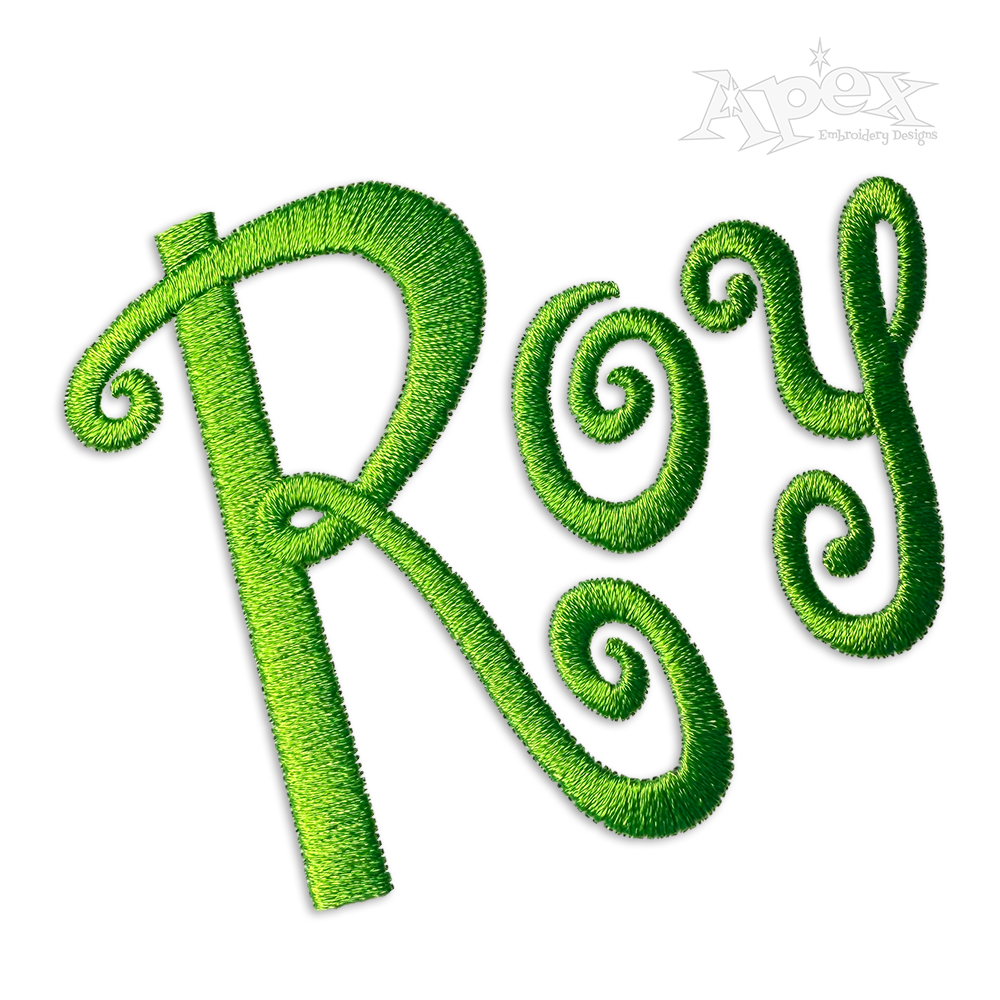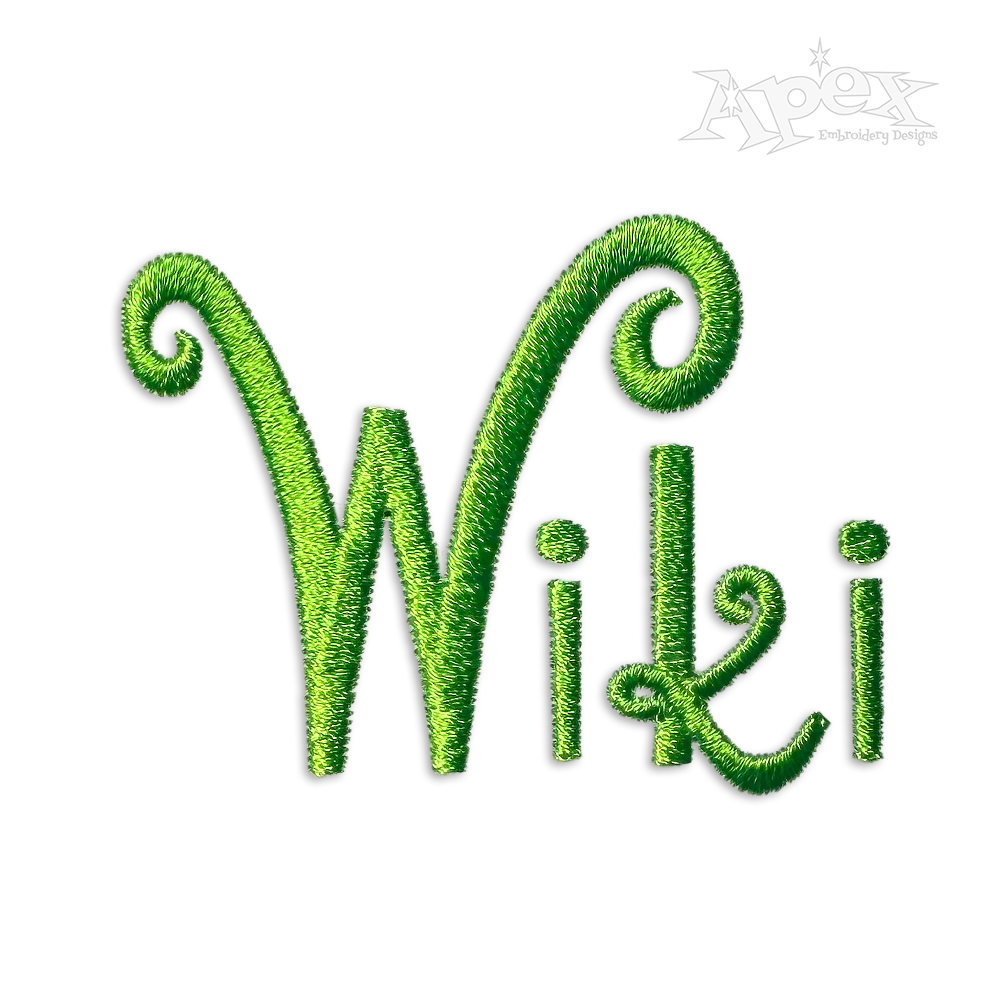
Sonny Embroidery Font
Conceived at the drafting table to breathe new life into playful typography, the Sonny Embroidery Font is a spirited celebration of movement, charm, and sunshine. Where conventional curly alphabets often feel chaotic or overly dated under the needle, Sonny balances whimsical swashes with disciplined geometry. Each letter rolls into the next with lyrical momentum, evoking the effortless delight of handwritten script combined with the clean architecture of modern boutique branding. It stitches out with a radiant cadence, making every personalized keepsake feel both lighthearted and meticulously crafted.
Project Ideas for Sonny
The cheerful energy of Sonny makes it a versatile choice for personalized gifting, bespoke resort wear, and boutique children's collections:
- Heirloom Nursery Linens: Embroider full names across waffle-weave baby blankets, crib bumpers, and heirloom christening keepsakes.
- Custom Children's Apparel: Stitch buoyant monograms onto sunny sunsuits, denim overalls, knit cardigans, and gingham birthday rompers.
- Bespoke Resort Accessories: Personalize canvas pool totes, oversized sun hats, and woven beach pouches with sun-soaked names or initials.
- Lively Tabletop Settings: Add a splash of personality to linen cocktail napkins and seasonal table runners for festive brunches and garden parties.
- Personalized Gift Sets: Transform cosmetic clutches, spa wraps, and travel duffels into memorable bridal party gifts and graduation mementos.
Because Sonny features dynamic curves and an animated posture, thoughtful placement lets its personality shine without overwhelming the garment:
- Left Chest & Pocket Accents: Use the 1-inch or 2-inch sizing slightly above or directly across pockets for a classic boutique look.
- Diagonal Corner Hooping: Position the 2-inch initials at a 45-degree angle on square dinner napkins or plush fingertip towels for an elevated, asymmetrical presentation.
- Center Front Framing: Position names or three-letter monograms in the 3-inch size dead center across sweatshirts, tee shirts, or canvas organizers.
- Cuff & Hemline Details: The 1-inch lowercase glyphs fit neatly along sleeve cuffs, hem borders, and collar edges for a charming peek-a-boo accent.
Sonny Craft & Letterform Details
Digitizing an animated, curling typeface requires an artisan's balance of tension, angle, and stitch flow. Rather than relying on automated fills, each curl and loop in Sonny is mapped with radial satin stitching that fans seamlessly around every turn. The thread reflects light in an unbroken, glossy contour, preserving smooth curves even around the tightest bends. We calibrated the underlay foundation specifically to anchor the letters firmly, preventing pulling or puckering on knit fabrics and textured linens while keeping the stitch count light and supple. The result is a vibrant, tactile satin stitch alphabet that stitches smoothly, reads clearly from across the room, and brings an unmistakable warmth to every project.